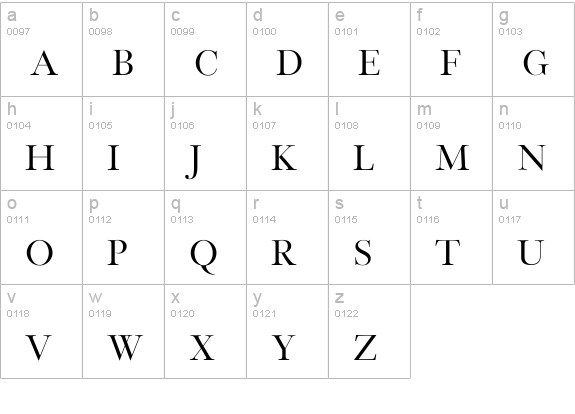
Wessex-RomanTitling Font Details
Introducing the remarkable Wessex-RomanTitling font, a true masterpiece in the world of typography. This font effortlessly combines the elegance of Wessex Roman with the captivating allure of titling, resulting in a truly unique and visually stunning typeface. Wessex-RomanTitling exudes a sense of sophistication and refinement, making it the perfect choice for projects that require a touch of class and professionalism. Its clean and crisp lines, coupled with the subtle curves and delicate serifs, create a harmonious balance that is both eye-catching and easy to read. What sets Wessex-RomanTitling apart from other fonts is its remarkable versatility. Whether you're designing a logo, creating a wedding invitation, or crafting a magazine layout, this font can effortlessly adapt to any project, enhancing its overall aesthetic appeal. And the best part? Wessex-RomanTitling is absolutely free to download at FontsMarket.com. Yes, you heard that right! This incredible font is just a few clicks away, waiting to be unleashed and utilized to its full potential. So why wait? Elevate your designs to new heights with Wessex-RomanTitling. Download it for free today at FontsMarket.com and unlock a world of endless creative possibilities.